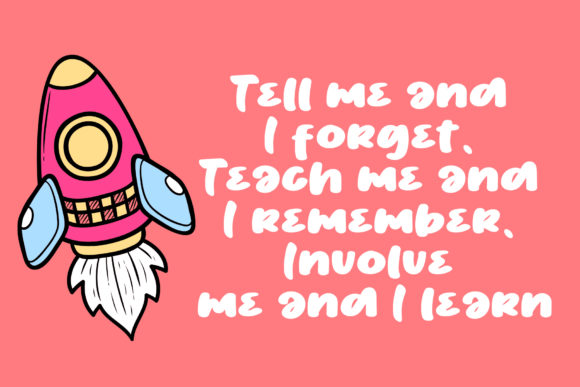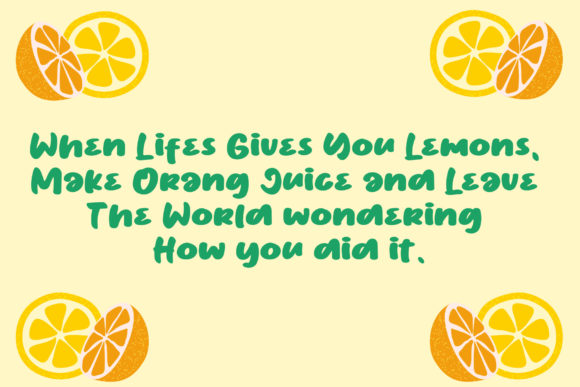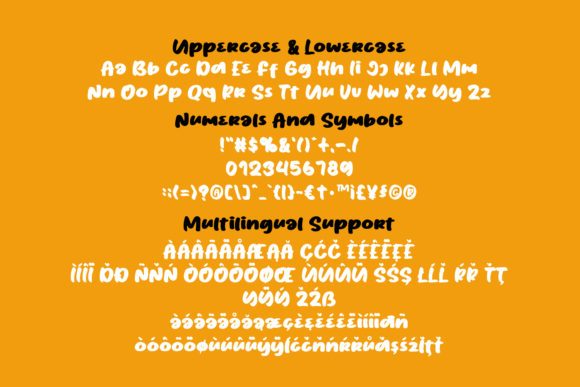
Unleash Your Creativity with Concrete Fantasia Font
Are you a designer, crafter, or DIY enthusiast looking for a font that can add a touch of whimsy and playfulness to your projects? Look no further than the Concrete Fantasia Font. This adorable and brushed display font is sure to bring a smile to your face and make your designs come alive.
What is Concrete Fantasia Font?
Concrete Fantasia is a unique and eye-catching font that features thick, bold letters with a joyful and carefree vibe. Its brushed texture gives it a handmade feel, making it perfect for designs that require a personal touch. Whether you’re creating posters, flyers, social media graphics, or craft projects, this font is sure to add a dash of personality to your work.
Key Features of Concrete Fantasia Font
- Cute and playful design: Concrete Fantasia Font boasts a charming and whimsical design that’s sure to capture attention.
- Thick lettered: The font features thick, bold letters that are perfect for creating eye-catching headlines and titles.
- Brushed texture: The brushed texture gives the font a handmade feel, adding a touch of warmth and personality to your designs.
- Display font: Concrete Fantasia is a display font, making it perfect for use in titles, headings, and other prominent text elements.
Who Can Use Concrete Fantasia Font?
Concrete Fantasia Font is perfect for a variety of designers, crafters, and DIY enthusiasts, including:
- Graphic designers: Add a touch of whimsy to your designs with this unique and eye-catching font.
- Crafters: Use Concrete Fantasia Font to create adorable and personalized craft projects, such as signs, banners, and cards.
- DIY enthusiasts: Add a personal touch to your DIY projects, such as home decor and furniture makeovers.
- Social media influencers: Use Concrete Fantasia Font to create engaging and eye-catching social media graphics.
- Use it as a title font: Concrete Fantasia Font is perfect for use in titles and headings.
- Experiment with colors: The font’s brushed texture looks great in a variety of colors, so don’t be afraid to experiment.
- Pair it with other fonts: Concrete Fantasia Font pairs well with a variety of other fonts, so feel free to get creative.
Benefits of Using Concrete Fantasia Font
There are many benefits to using Concrete Fantasia Font in your designs, including:
- Unique and eye-catching design: Concrete Fantasia Font is sure to capture attention and add a touch of personality to your designs.
- Versatile: Concrete Fantasia Font can be used in a variety of design projects, from posters and flyers to social media graphics and craft projects.
Concrete Fantasia Font is a unique and eye-catching font that’s perfect for designers, crafters, and DIY enthusiasts looking to add a touch of whimsy and playfulness to their projects. With its thick, bold letters and brushed texture, this font is sure to bring a smile to your face and make your designs come alive. So why wait? Download Concrete Fantasia Font today and start creating!